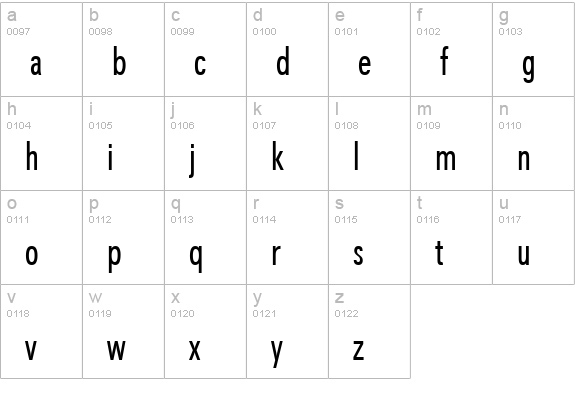
MaximaCyrTCYLigCom Font Details
MaximaCyrTCYLigCom is an elegant and versatile font that combines traditional Cyrillic characters with a contemporary touch. This font features a unique ligature design that adds a sophisticated flair to any project. With its clean lines and stylish curves, MaximaCyrTCYLigCom is perfect for adding a touch of class to your designs. What's even better is that MaximaCyrTCYLigCom is available for free download at FontsMarket.com. This means you can easily access this beautiful font to enhance your projects without any cost. Whether you're designing a poster, logo, or website, MaximaCyrTCYLigCom will bring a touch of elegance and professionalism to your work. Download it today and elevate your designs with this stunning typeface.